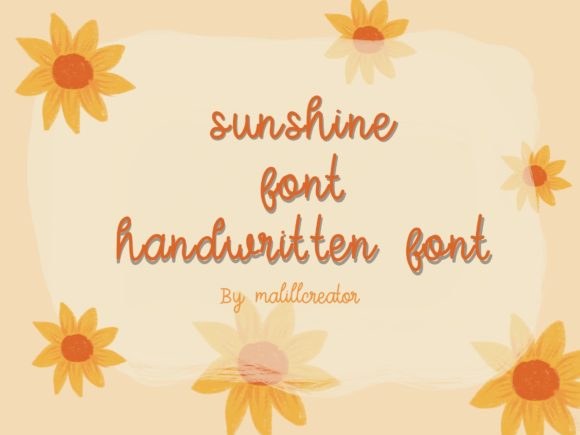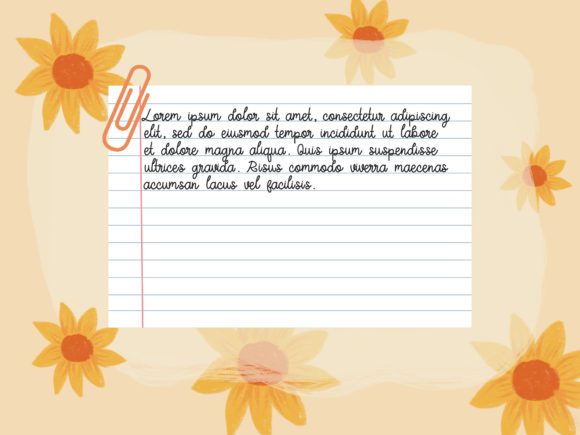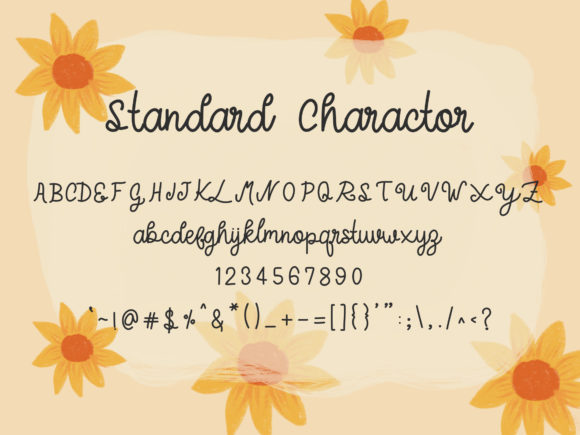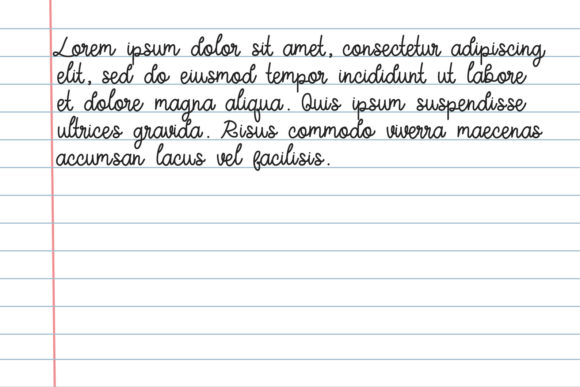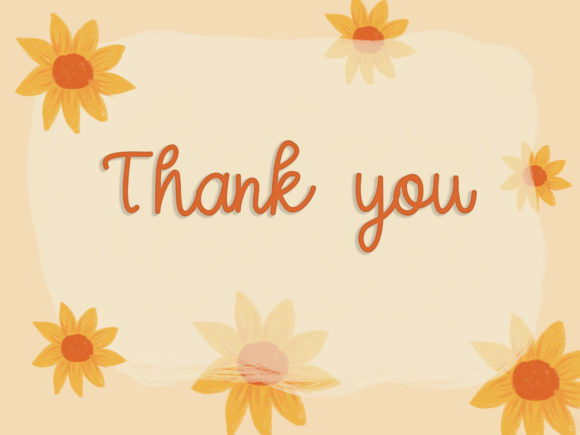
Sunshine Font
About Sunshine Font
Sunshine is a simple and neat handwritten script font that brings a unique charm to any design project. Script fonts like Sunshine are known for their fluidity and elegance, often mimicking the style of handwritten calligraphy. This makes them a popular choice for a variety of projects that require a touch of sophistication and personalization.
The simplicity and neatness of Sunshine make it perfect for taking digital notes while studying. Its clear and legible characters make it easy to read, which is an important consideration when choosing a script font for note-taking.
In addition to digital notes, Sunshine also works great for a digital planner. Its simple and neat nature makes it suitable for both modern and vintage aesthetics, providing a timeless appeal. It can add a personal touch to your digital planner, making it more engaging and enjoyable to use.
Sunshine is not just limited to digital notes and planners. It’s also great for storybooks, magazines, invitations, or any other project that needs a personal touch. Its versatility and wide range of applications make it a valuable addition to any designer’s toolkit.
In conclusion, Sunshine is more than just a simple and neat handwritten script font. It’s a versatile design tool that can bring a unique, personal touch to your projects. Whether you’re a seasoned designer or just starting out, Sunshine is a script font worth considering. Its combination of style, versatility, and legibility make it a standout choice in the world of script fonts. So, if you’re looking for a script font that can add a beautiful script taste to your projects, Sunshine might just be the perfect fit.